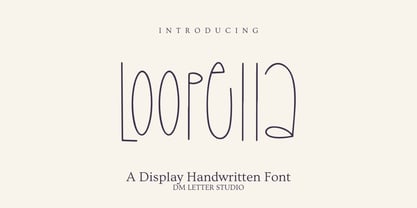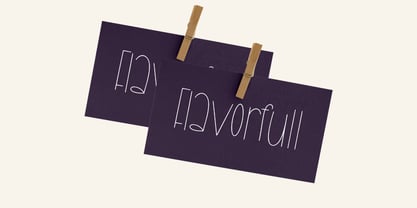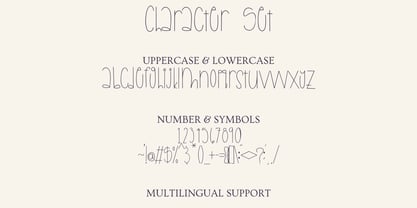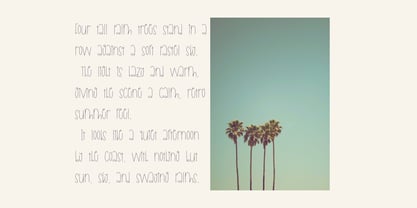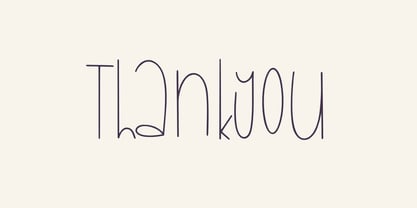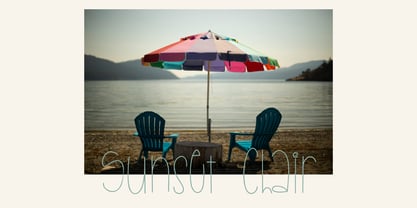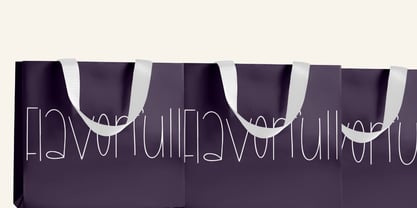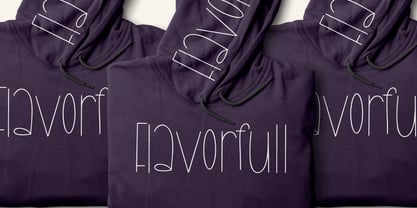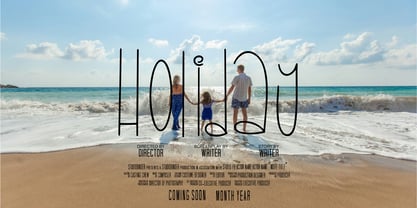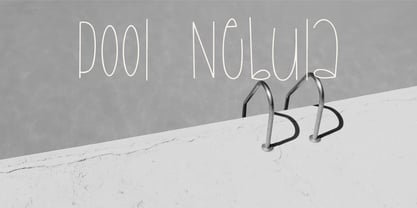
Loopella
by DM Studio
The Loopella Font Family was designed by Dimas Prasetyo and published by DM Studio. Loopella contains 1 styles. More about this family
Meet Loopela Font is a playful, rounded display with lively loops and smooth strokes. Letters feel friendly and confident, so titles read fast on mobile and print. Because the shapes are thick and clean, your words pop on shirts, stickers, thumbnails, packaging, and party kits. Use it for kids’ brands, summer drops, planners, and cheerful social posts. Moreover, Loopela Font pairs well with a simple sans for captions, which keeps layouts tidy. Where Loopela Font shines Set short phrases like “Good Vibes,” “Happy Day,” or a first name. Then add outlines, sticker borders, or soft shadows for instant depth. Since spacing is tuned for headlines, designs come together in minutes. As a result, you can launch full bundles for printables, POD, and reels with less editing. Plus, the rounded rhythm keeps names clear on tags and labels. Fast setup, bright results Install the files and start creating right away in Canva, Photoshop, and Illustrator. Smooth paths keep DTG prints, sublimation, and vinyl cuts crisp at any size. Consequently, mugs, tote bags, notebooks, and boxes all carry the same upbeat look. Next, try color stories like coral and mint, lemon and navy, or lilac and cream to lock a friendly identity. Finally, save a base template with headline, inner highlight, and shadow so new SKUs roll out fast. Design tips for Loopela Font Keep copy short and let the letterforms lead. Pair big Loopela headlines with a neutral geometric sans for specs and pricing. Meanwhile, use layered fills for a puffy sticker effect, or add tiny stars and smileys for quick icon sets. Because the forms are rounded, glitter textures, pastel gradients, and soft glow work very well. However, avoid long sentences on tiny labels. Names, dates, and bold words hit hardest. What you get inside Uppercase, lowercase, numbers, punctuation Multilingual Latin support Clean outlines tuned for vinyl, DTG, and high-res print Why creators choose Loopela Font You want happy energy with clear readability. Loopela delivers. It grabs attention in crowded feeds, speeds production, and scales from mini stickers to posters without losing charm.
Designers: Dimas Prasetyo
Foundry: DM Studio
DM Studio was founded in 2018 and created by Dimas and Yuniar. DM Studio is based in Bandung, West Java, Indonesia. Provides unique and fresh Handwritten Fonts for Seasonal , Halloween , Display , Monogram and various purposes. our Studio very Dedicated on Our Style Font. Please visit our Webstore on Dmletterstudio.com for any question about our Font. Enjoy!